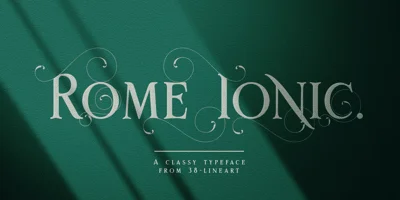
Roman Ionic Font
Roman Ionic Font is perfect for classical architecture firm branding, ancient history museum signage, prestigious university materials, archaeological publication designs, cultural heritage institution logos, and traditional academic conference graphics.
Roman Ionic Font is exciting because it embodies the architectural grandeur and scholarly authority of classical antiquity, delivering a distinguished typeface that captures the timeless elegance of Ionic columns and Roman imperial magnificence.
The Roman Ionic Font family includes classical variations: Roman Ionic Light, Roman Ionic Regular, Roman Ionic Bold, architectural alternates, and decorative elements inspired by ancient Roman inscriptions and Ionic column capitals.
Build lasting impressions with Roman Ionic Font, a classically crafted typeface that brings architectural nobility and ancient wisdom to your most distinguished design projects. This majestic font excels in creating authoritative branding for classical studies departments, archaeological research institutions, prestigious law firms, and cultural organizations that preserve and celebrate the intellectual legacy of classical civilization. The masterfully designed letterforms feature proportional harmony and architectural details reminiscent of Roman imperial inscriptions and temple architecture that communicate authority, tradition, and scholarly excellence while ensuring perfect readability across all classical applications. Perfect for academic publications, museum exhibition catalogs, classical literature editions, and institutional communications that need to convey intellectual gravitas and cultural sophistication, this font connects with scholars and cultural enthusiasts who appreciate the foundational importance of classical antiquity. Each character stands with columnar dignity, making every classical message feel like an inscription worthy of ancient temples and imperial monuments. Roman Ionic Font transforms contemporary communications into timeless declarations that honor the architectural and intellectual achievements of classical civilization while establishing unquestionable authority in academic and cultural institutions.